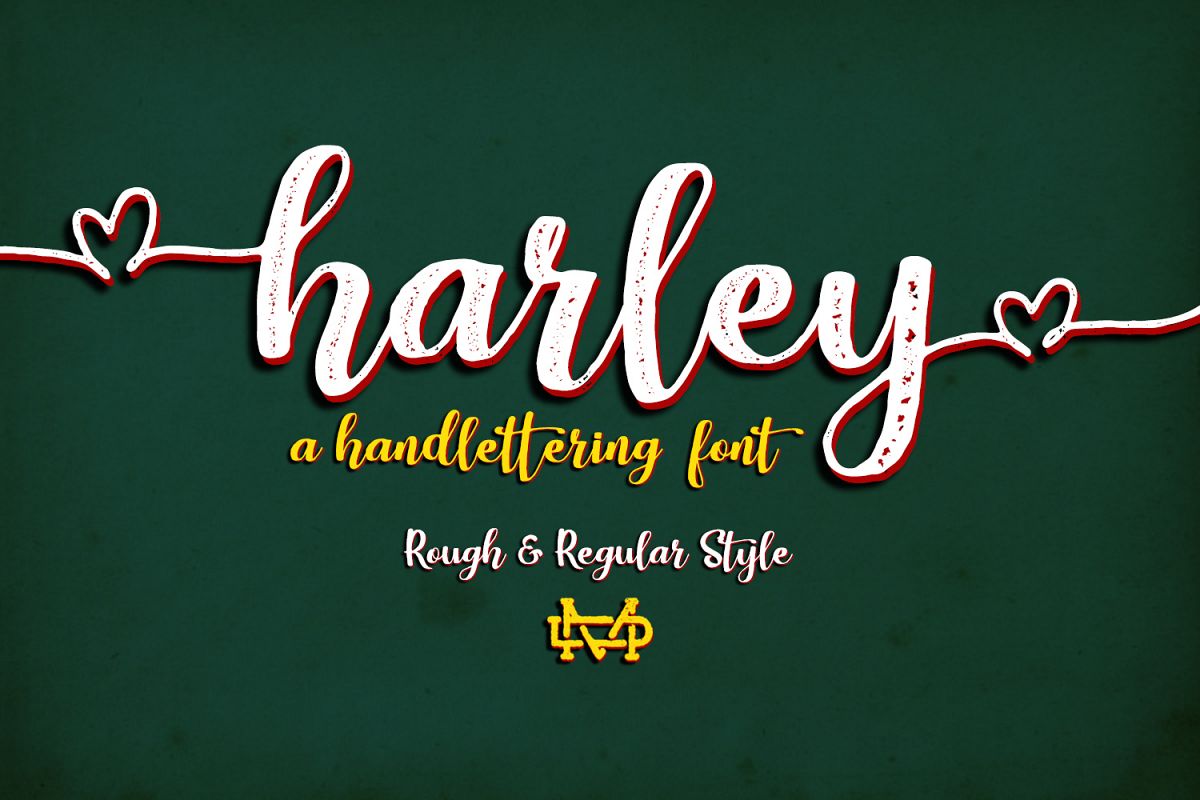
Harley Script
Really excited to introduce Harley script is a hand lettering typeface! Harley perfect for all your designs project, invitation and more.
•  Harley Script Solid
•  Harley Script Rough
•  UPPERCASE
•  lowercase
•  Number & Symbol
•  International Glyps
•  Alternative UPPERCASE
•  Alternative lowercase
•  Ligatures
•  Swashes